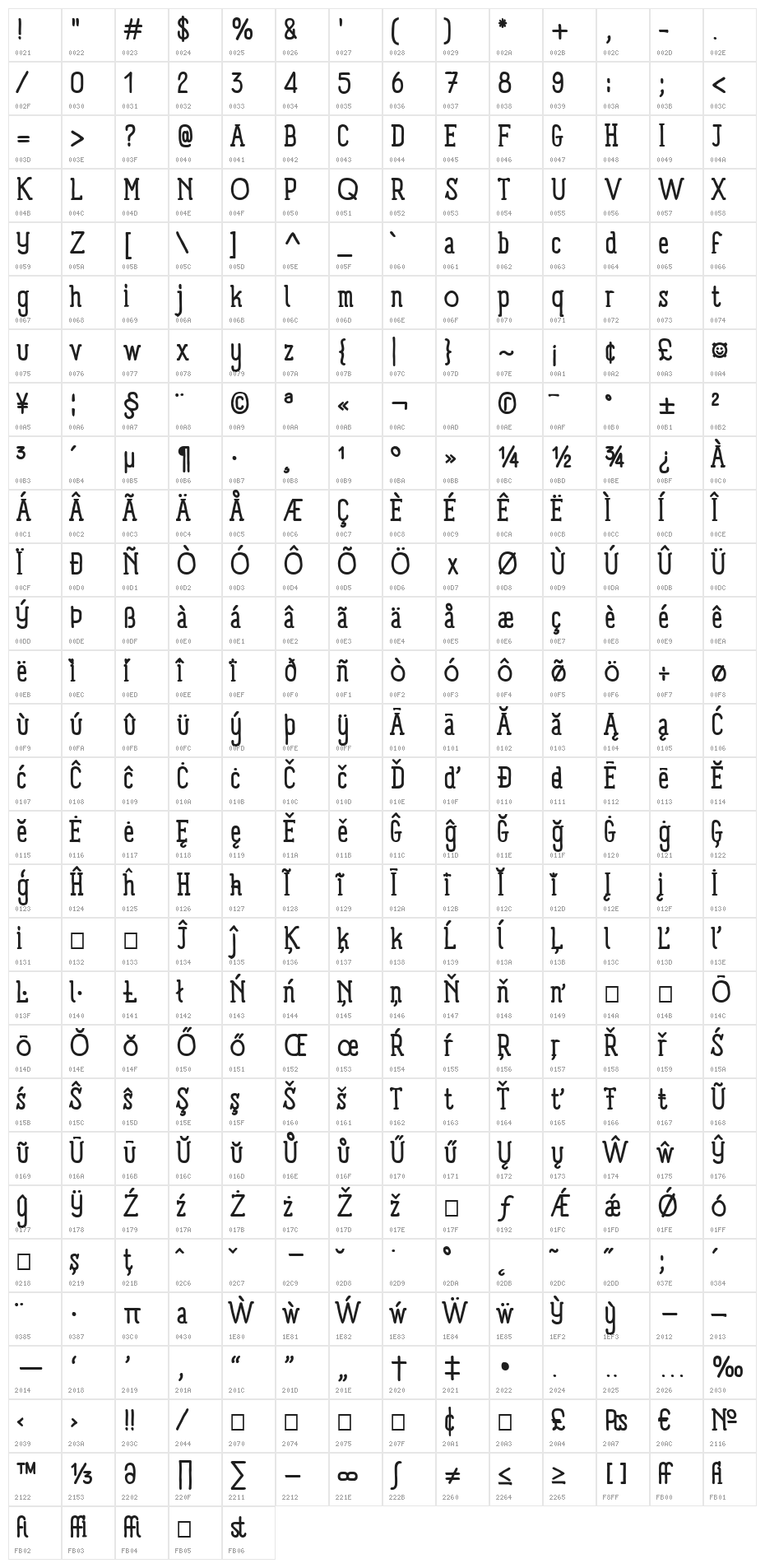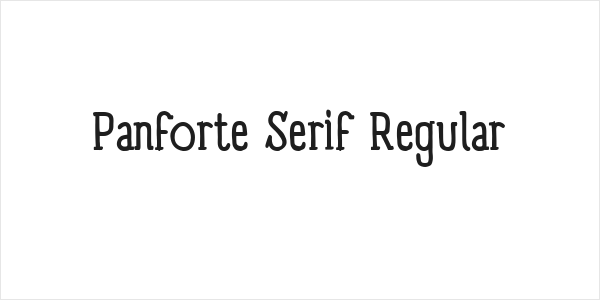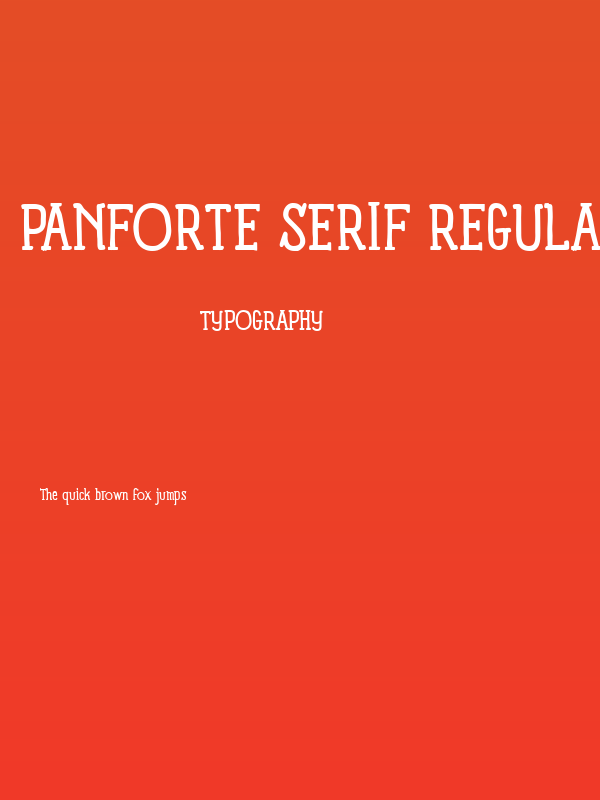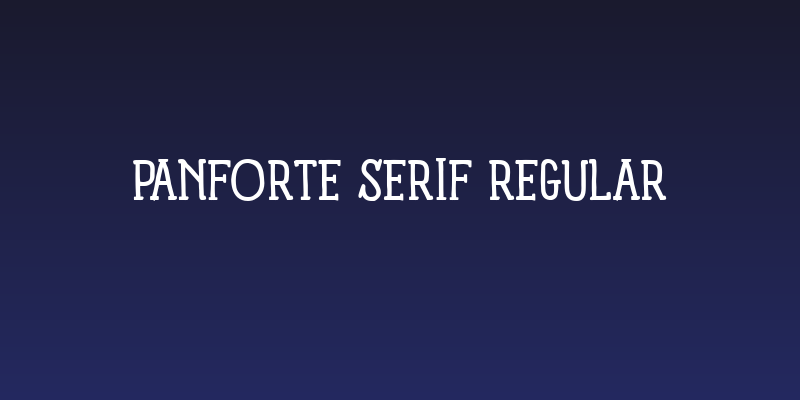
Panforte Serif Regular Font
Panforte Serif Regular Description
This font features a classic serif style with a modern twist, characterized by its bold and slightly condensed letterforms. The uppercase letters exhibit a strong presence with distinct serifs that add a touch of elegance and tradition. The lowercase letters maintain a consistent style, offering a harmonious balance between readability and aesthetic appeal. Numbers are clear and well-defined, making them suitable for various applications. The special characters are thoughtfully designed, ensuring they complement the overall style of the font. This font's unique blend of traditional serif elements with a contemporary flair makes it versatile for numerous design projects.